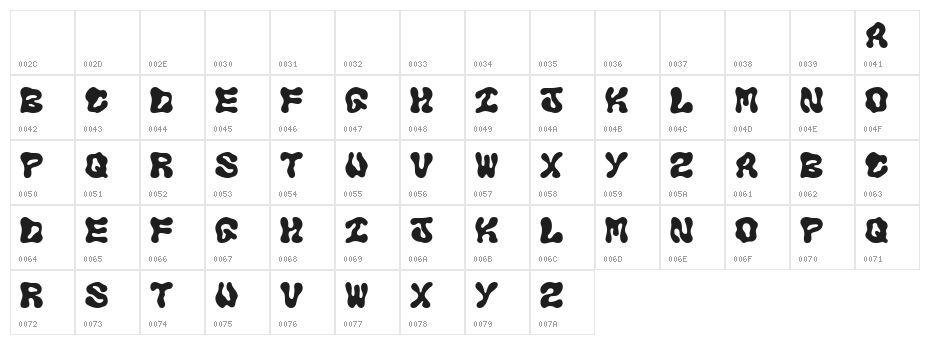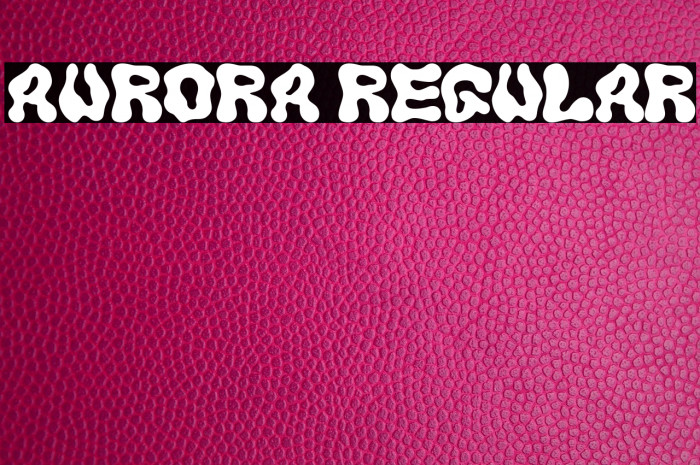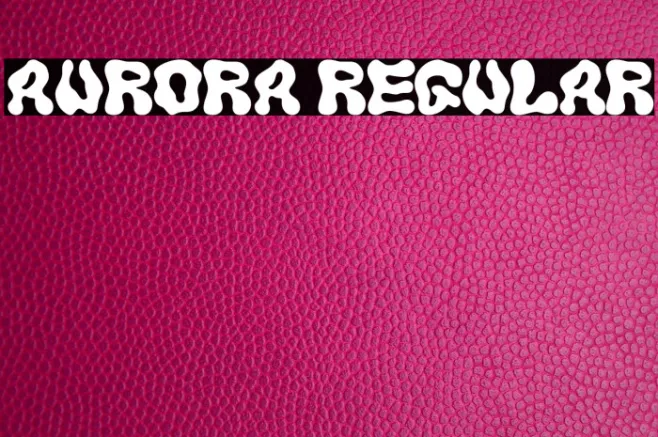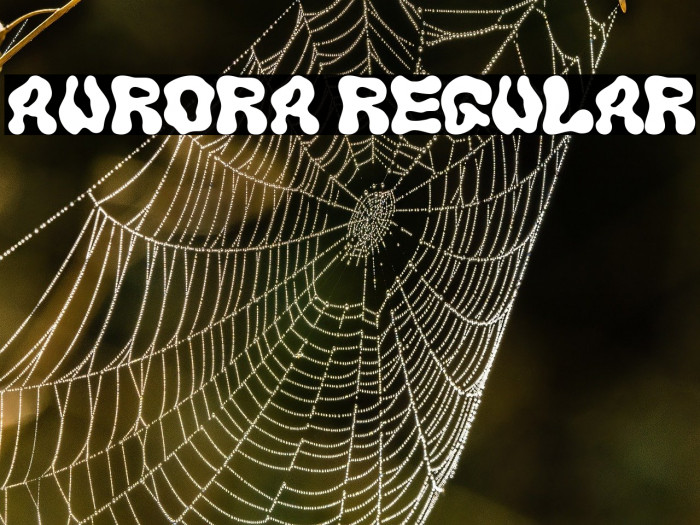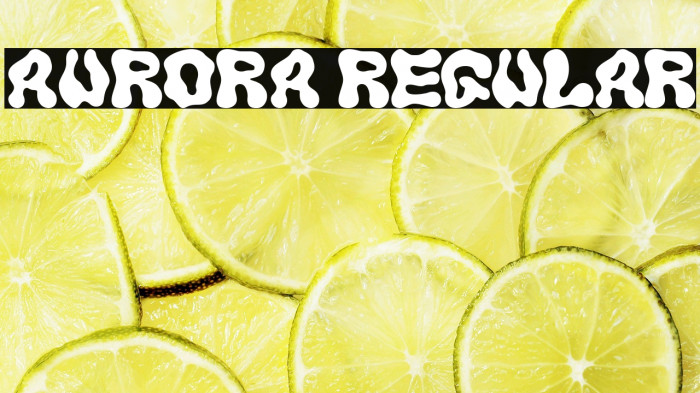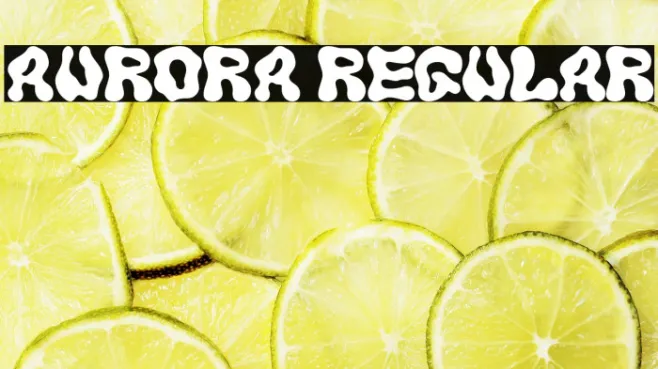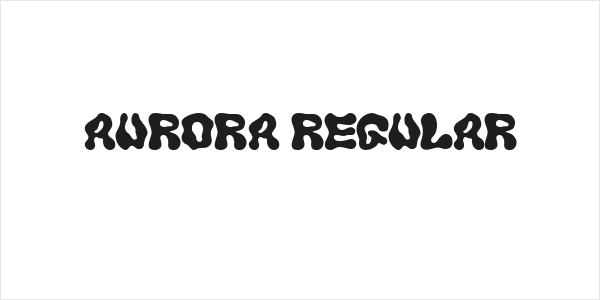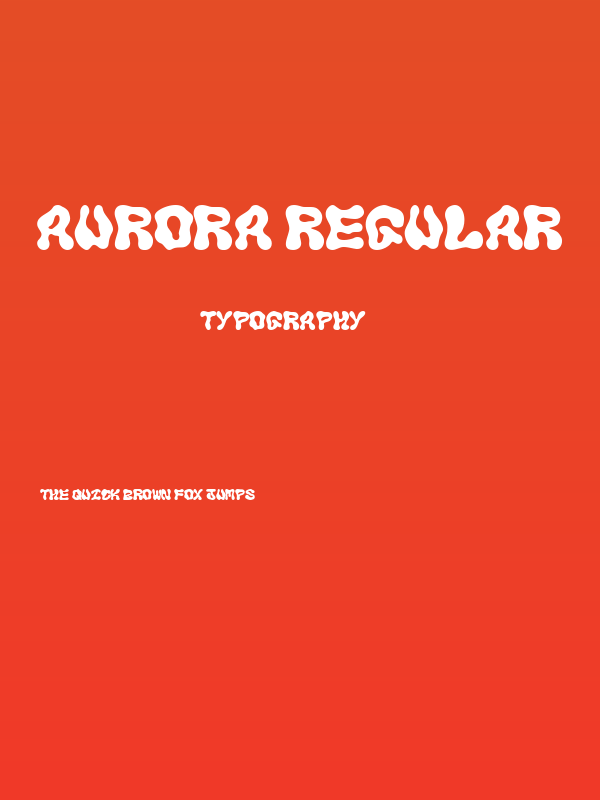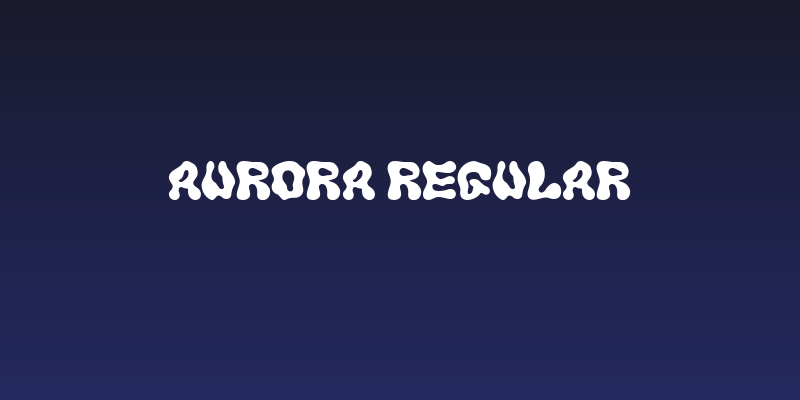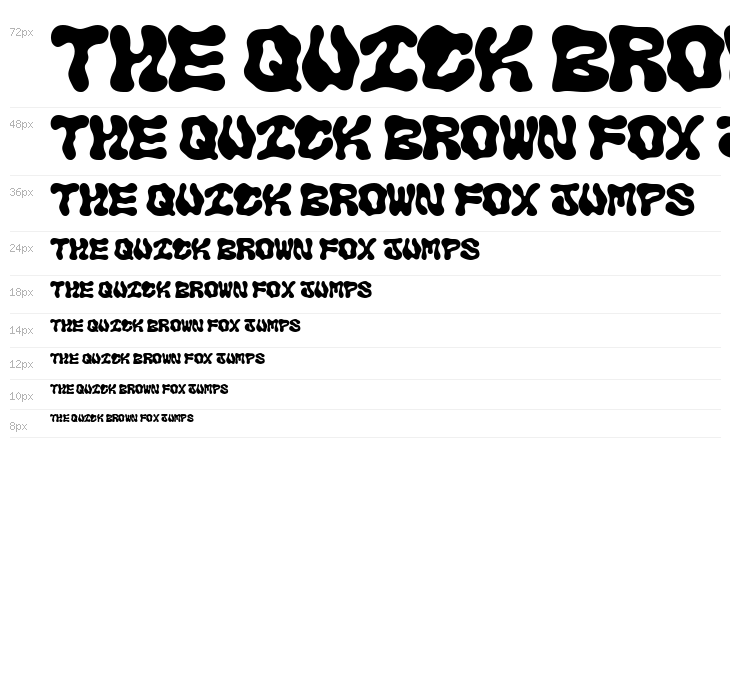
AURORA Regular Font
AURORA Regular Description
This font features a bold, organic design with a playful and fluid appearance. The characters are rounded with irregular edges, giving them a unique, almost liquid-like quality. The boldness of the strokes creates a strong visual impact, making it ideal for attention-grabbing designs. The font's style is reminiscent of retro or psychedelic aesthetics, with a modern twist. Its distinctive look is perfect for creative projects that require a touch of whimsy and boldness.
| Proposed Projects | Ideal for posters, album covers, branding for creative industries, and any project needing a bold, artistic touch. |